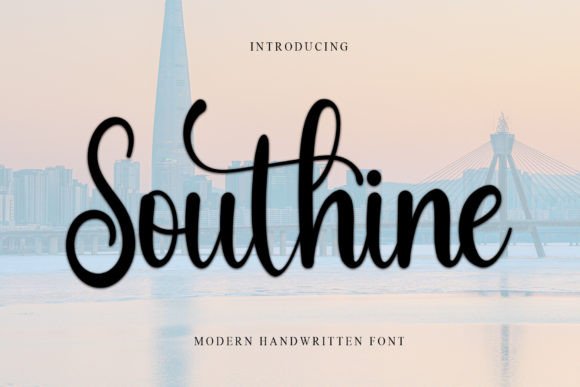
Dive into the world of elegance and grace with Southine Font, the captivating script font family that will transform your creative projects into breathtaking masterpieces. Inspired by the timeless beauty of classic calligraphy, Southine's carefully crafted strokes exude a contemporary flair that will leave you spellbound.
Southine is a font designed to elevate your projects with its inherent balance and variety. Each letterform has been meticulously crafted to enhance the aesthetic appeal of your designs, adding a touch of sophistication and allure. Whether you're a seasoned designer or just starting your creative journey, Southine will effortlessly elevate your work to new heights.
With its contemporary atmosphere and impeccable form, Southine is the perfect choice for creating stunning wedding invitations, heartfelt greeting cards, eye-catching social media posts, and any other project that demands a touch of elegance. Its versatility extends beyond traditional wedding-themed designs, making it an ideal choice for branding projects, logo designs, and any creative endeavor that calls for a touch of timeless beauty.
Southine's PUA encoding opens up a world of creative possibilities, allowing you to effortlessly access a treasure trove of amazing glyphs and ligatures. Unleash your imagination and explore the endless possibilities to create unique and captivating designs that will leave a lasting impression.
Don't settle for ordinary fonts that blend into the background. Embrace the allure of Southine Font and embark on a creative journey that will captivate and inspire. Its timeless elegance and contemporary charm will transform your projects into works of art that resonate with beauty and sophistication.